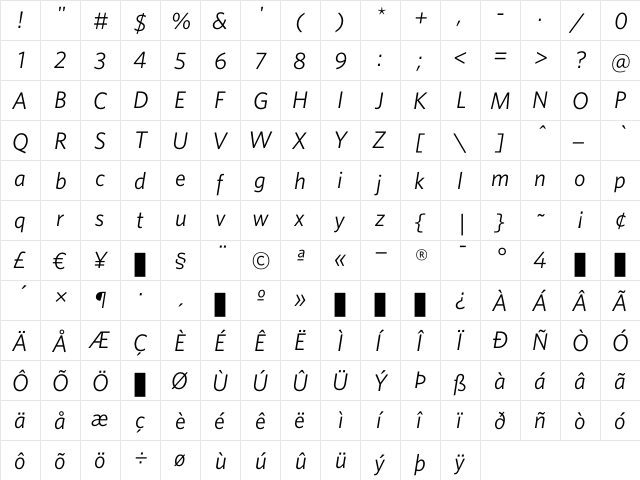
Whitney BookItalic
Design Context for Whitney Typeface
Whitney is a composed and adaptable typeface that performs quietly and consistently across a wide range of design contexts. The dynamic lean of this cut emphasises speed and emphasis in any layout.
Pro Tip: Use Whitney for emphasis, pull quotes, and subheadings where its slanted energy can add rhythm to the layout.